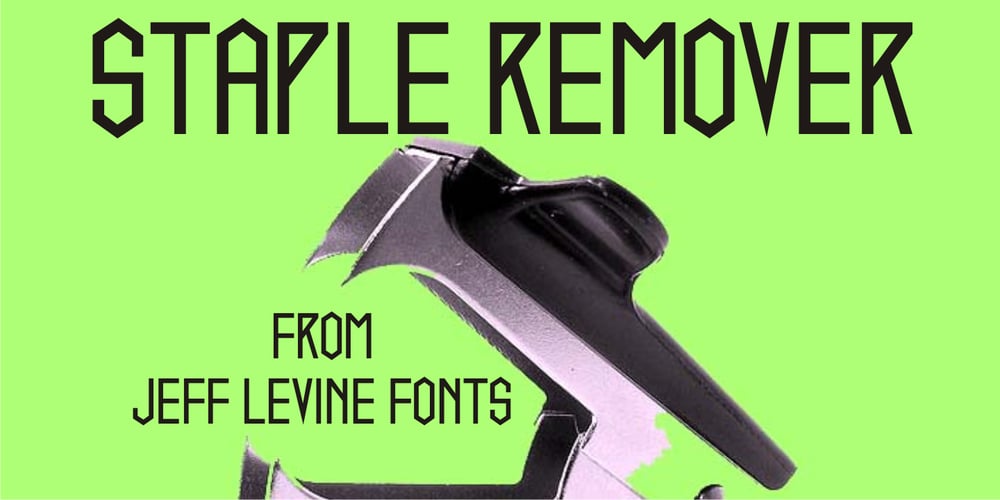
Staple Remover JNL Font Family was designed by Jeff Levine and published by Jeff Levine. Staple Remover JNL contains 1 styles and family package options. Hand lettering on the packaging for an Arrow “Commander” Staple Remover seen in an online auction is the inspiration for the unusual and angular typeface comprising Staple Remover JNL. The Art Deco era of the 1930s and 1940s offers many wonderful examples of stylized and experimental lettering, and this, by far is one of the more eclectic styles of the time.